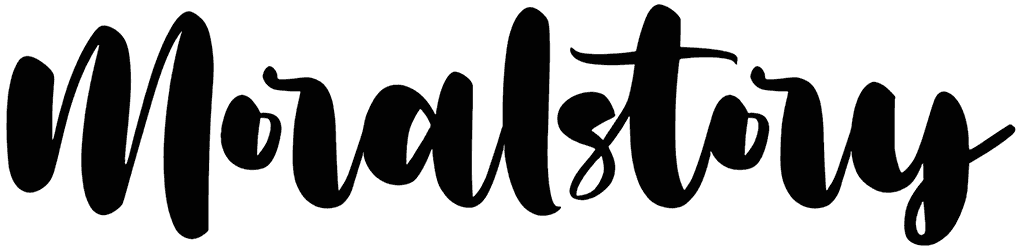
Moralstory Font
Moralstory is a sweet brush font; every letter includes a combination of thick and thin lines with a curvy appearance. It can make your design look more modern and friendly. You’d better know the fact that it doesn’t support numbers and most punctuation. This cursive font is perfectly qualified for clothes printing, branding materials, birthday invitations, food menu, greeting cards, etc.